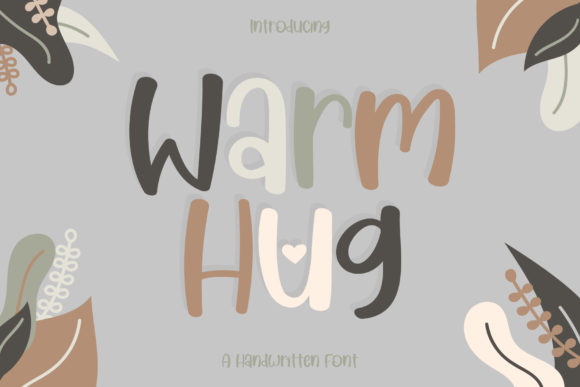
Journey into the realm of Warm Hug Font, a script font family meticulously crafted to spark joy and evoke a sense of playful whimsy. With its friendly, round lettered design and neat handwritten style, Warm Hug envelops your creations in a captivating aura of warmth and charm.
Unleash your creativity and dive into a world of endless possibilities. Let Warm Hug lend its enchanting touch to your cartoon-inspired designs, ignite laughter and engagement in children's games, or elevate any project that craves a dash of delightful charm.
Embark on a storytelling adventure with Warm Hug as your trusty companion. Craft captivating invitations adorned with heartfelt messages, design posters that radiate warmth and positivity, or create social media posts that resonate with your audience on a personal level.
Step into the realm of education with Warm Hug as your ally. Its exceptional readability and legible style make it an ideal choice for academic papers, research projects, and presentations. Create APA Style papers that exude professionalism while maintaining a touch of creative flair.
With Warm Hug by your side, transform your digital creations into captivating masterpieces. Craft eye-catching logos that leave a lasting impression, design website banners that draw visitors in, or create product labels that entice customers to discover the magic within.
Indulge in the creative embrace of Warm Hug and let your imagination soar. Embrace the power of storytelling, education, and digital design as you unlock the full potential of this enchanting font family.